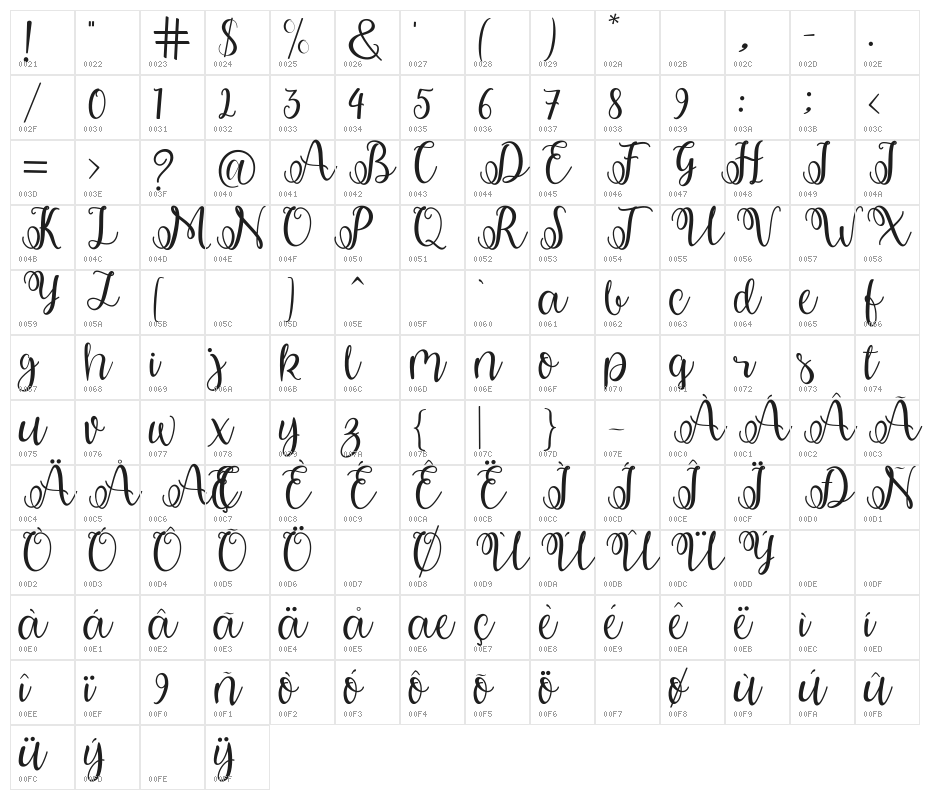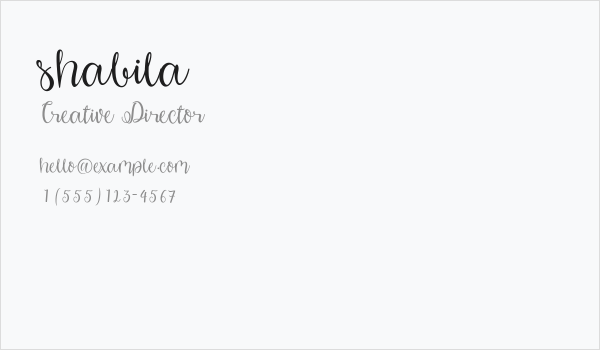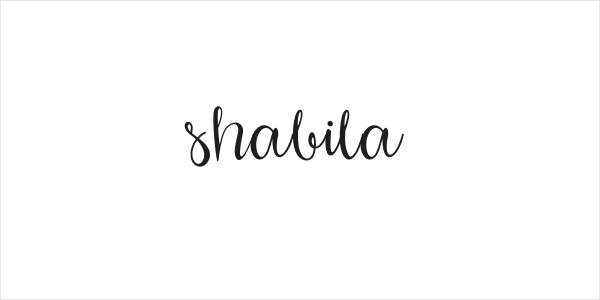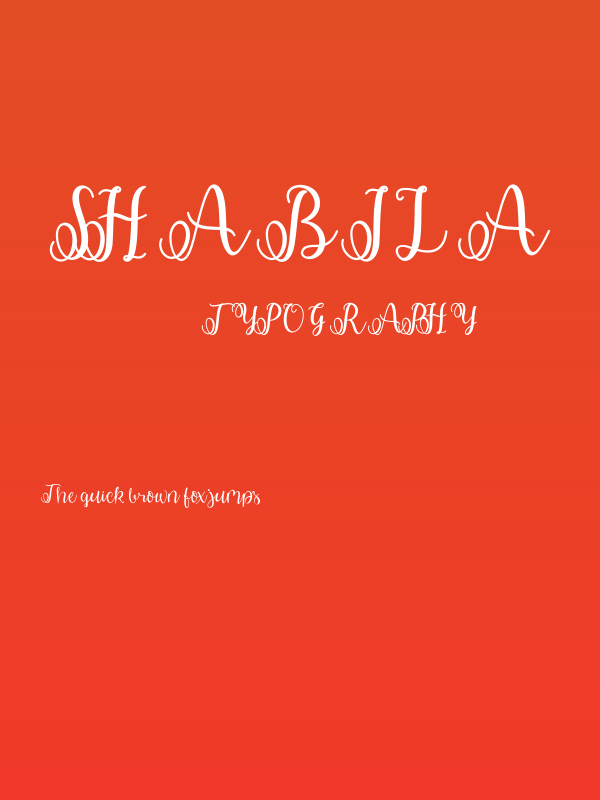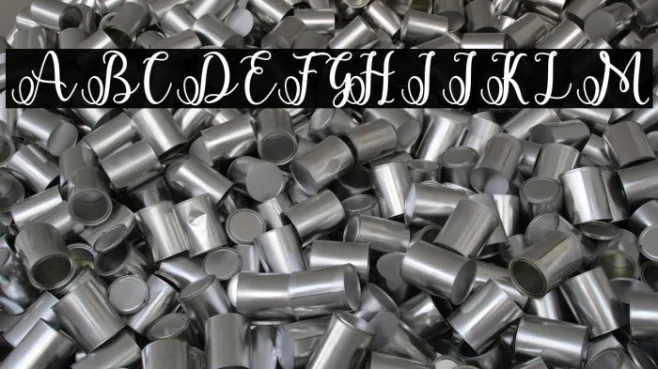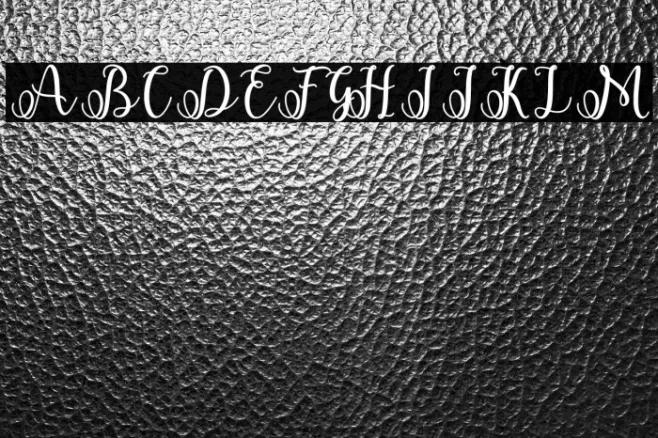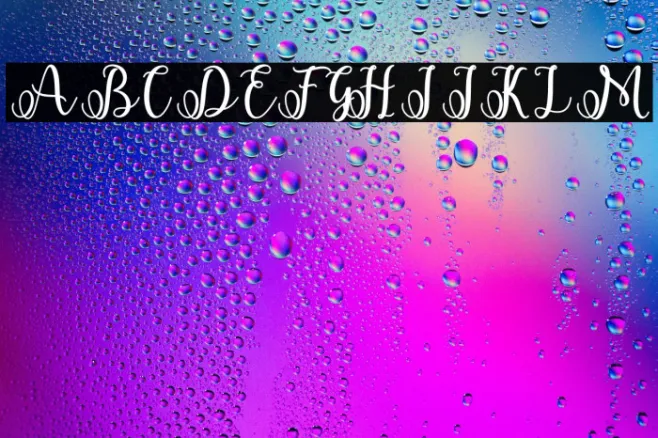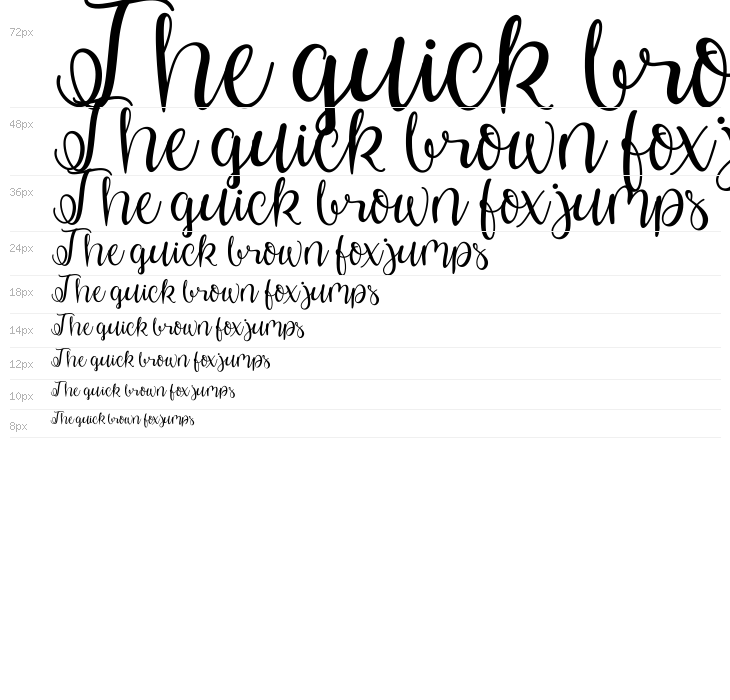
shabila Font
shabila Description
This font features an elegant and flowing script style, characterized by its ornate and decorative swirls. The uppercase letters are particularly elaborate, with intricate loops and flourishes that give a sense of sophistication and artistry. The lowercase letters maintain a consistent style, with smooth curves and a slightly playful touch. The numerals are well-integrated into the overall design, carrying the same graceful aesthetic. Special characters are thoughtfully designed, complementing the font's overall look. This font is ideal for projects that require a touch of elegance and creativity.
| Use Case | Logos, Invitations, Decorative Text |
| Proposed Projects | Wedding invitations, greeting cards, branding, and logo design. |